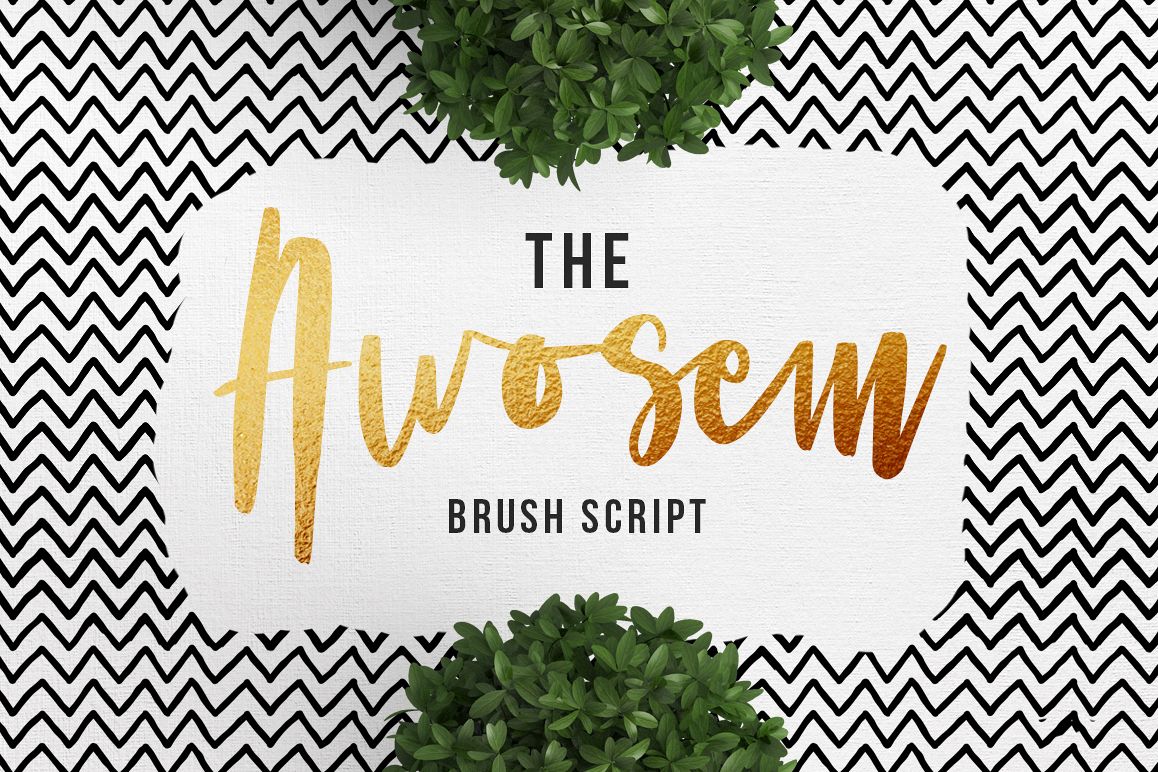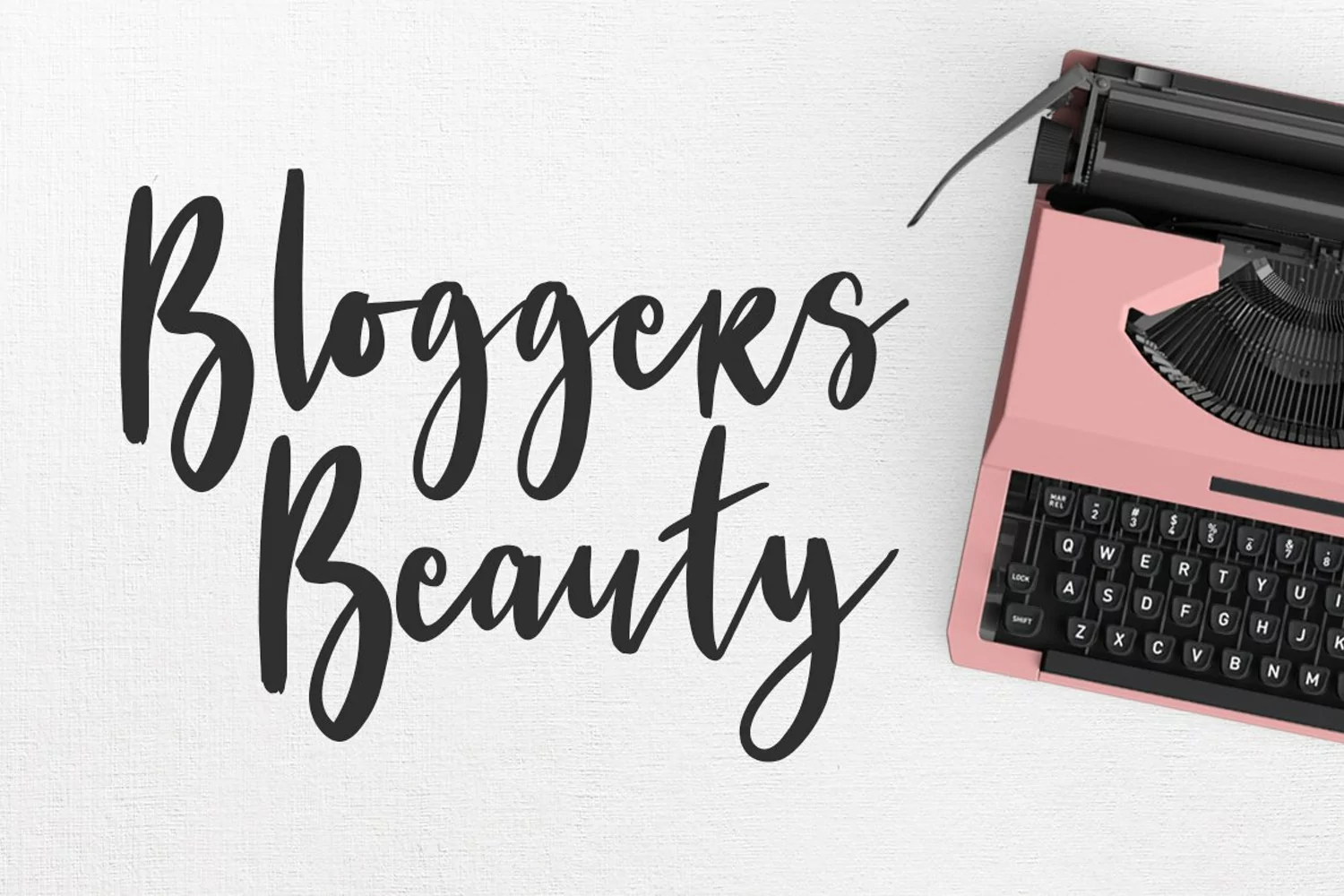
Awosem Typeface Quotes
Give your designs an authentic handcrafted feel. "Awosem" is perfectly suited to poster, stationery, logo, typography quotes, magazine or book cover, website header, clothing, branding, packaging design and more.